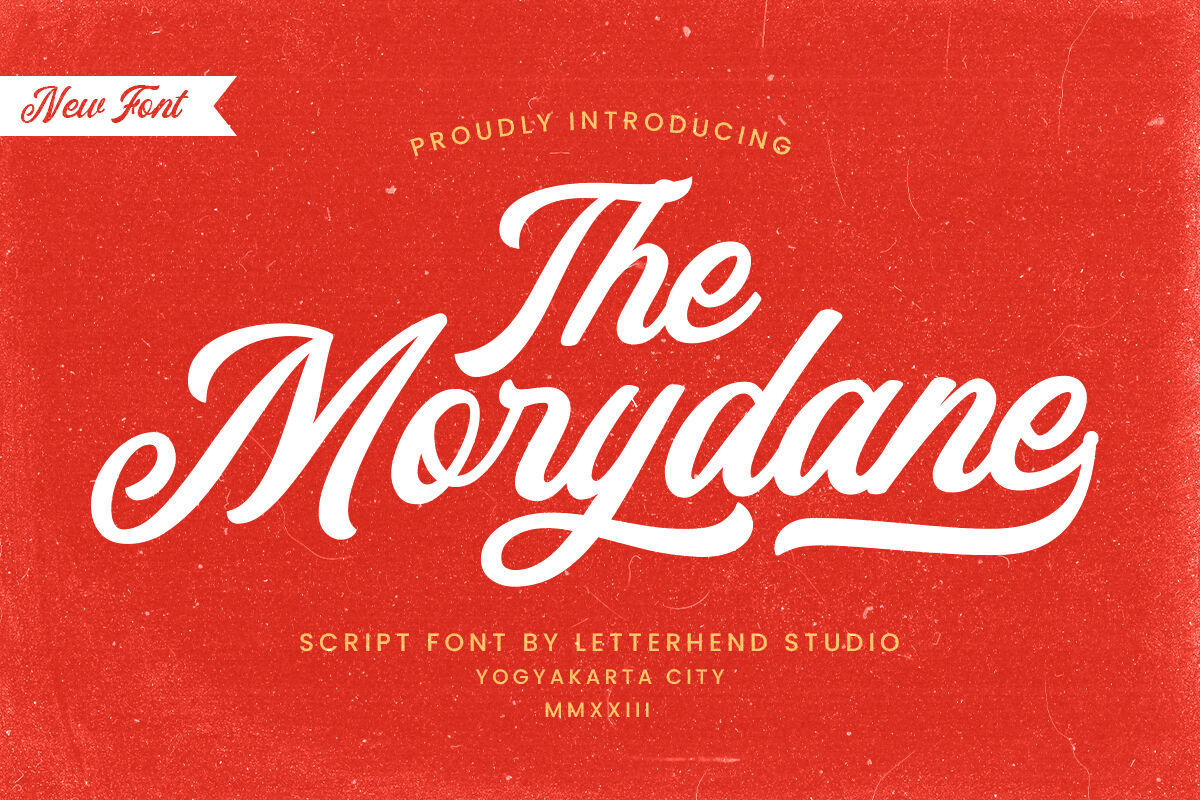
Introducing Morydane a script font perfect for designers looking for a modern and casual style. With its clean lines and flowing curves, this font is ideal for adding an interesting touch to your designs,especially in logo, and the other various formal forms such as invitations, labels, logos, magazines, books, greeting / wedding cards, packaging, fashion, make up, stationery, novels, labels or any type of advertising purpose.
Features :
Uppercase & lowercase
Numbers and punctuation
Alternates & Ligatures
Multilingual